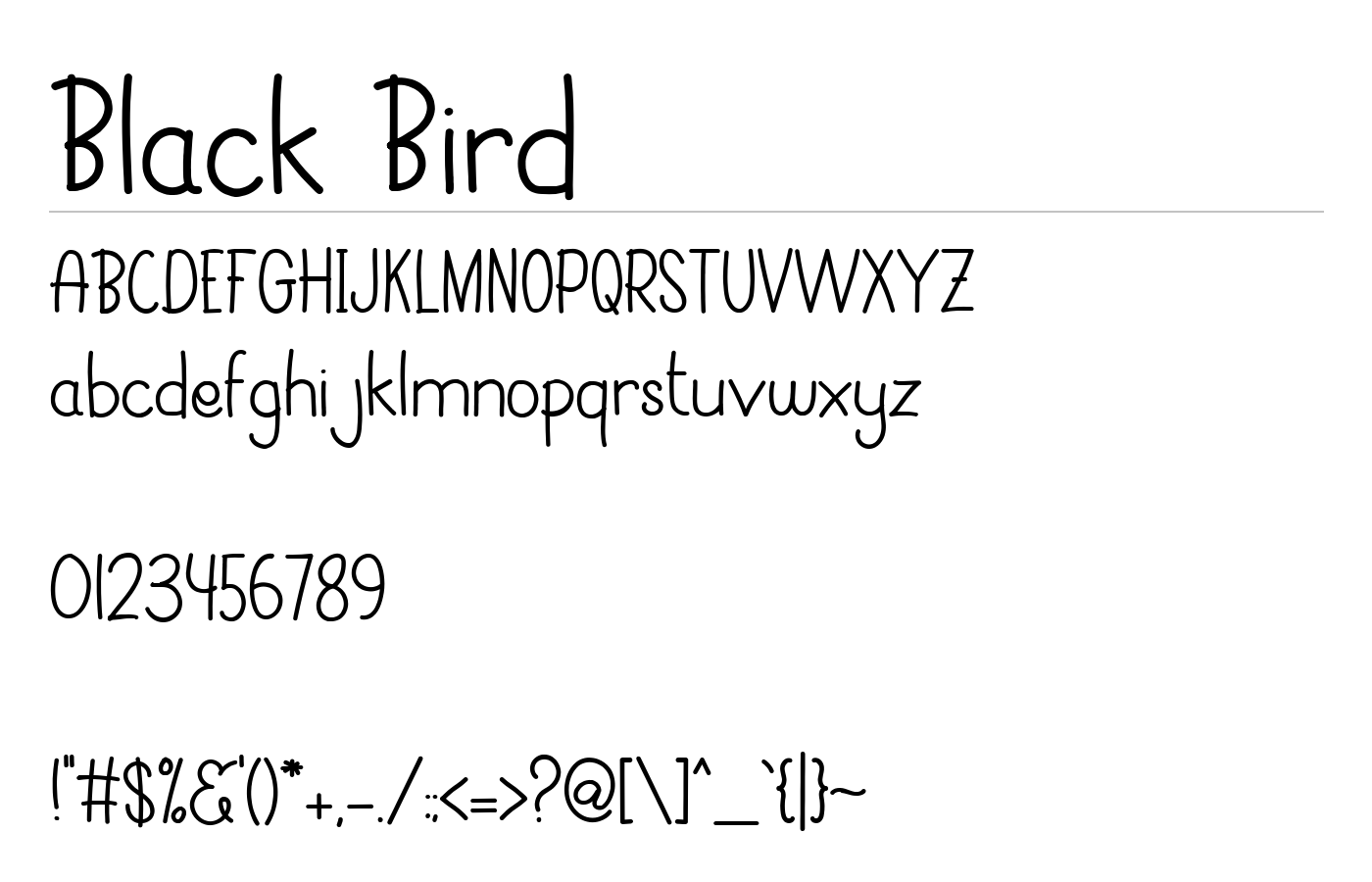
Black Bird is a playful, hand-drawn sans serif font with a light weight and tall, narrow letterforms. Its casual, slightly quirky style and consistent stroke width make it perfect for creative branding, children’s books, and informal communication where a friendly and approachable tone is desired. This font stands out in headlines, logos, and packaging that aim to convey warmth and personality.
Black Bird Font